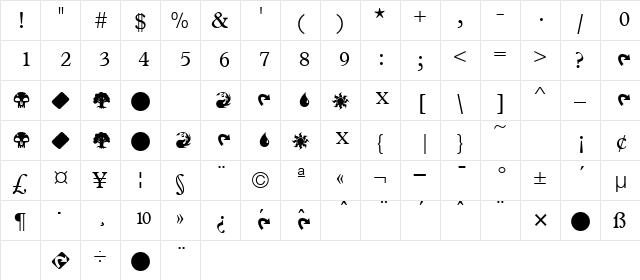
MagicSymbols Regular
Design Context for MagicSymbols Typeface
MagicSymbols takes a measured approach to typography — its balanced proportions and neutral character make it a reliable workhorse for both digital and print work.